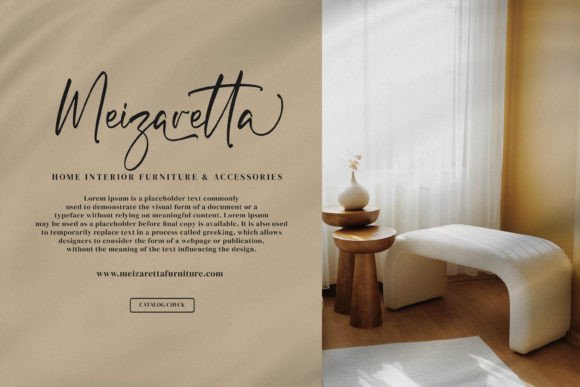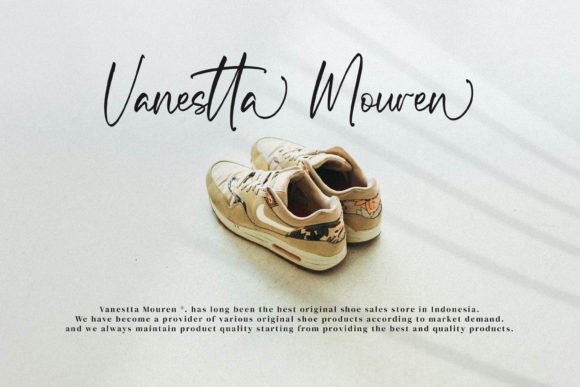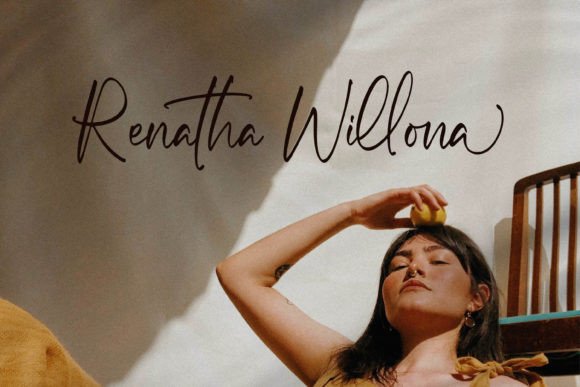
Introduction to Micqallena Font
As a designer, you’ve probably had that moment where you’re working on a project and everything feels just a little off – until you find the perfect font to bring it all together. For me, that moment came when I stumbled upon the Micqallena Font, a beautifully crafted script font that added a touch of elegance to even the simplest of designs.
With its high-quality design and intricate details, the Micqallena Font is a valuable addition to any designer’s library. Whether you’re working on a free download or a paid project, this font has the potential to elevate your creative work and make it truly stand out. Plus, with its transparent background, it’s easy to use in a variety of design resources, from logos to digital art.
As a design resource, the Micqallena Font is a game-changer for any creative project. Its versatility and beauty make it an essential tool for designers of all levels, and its potential to enhance any design makes it a must-have for any serious design enthusiast.
Key Features of Micqallena Font
- High-quality design resource ideal for creative projects and graphic designs.
- Features a unique, elegant design with a transparent background, perfect for overlaying on images or videos.
- Comes in a range of sizes, allowing you to scale the font to suit your specific design needs.
- Resolution-independent, ensuring crisp and clear text display regardless of the resolution or screen size.
- Perfect for use in a variety of creative projects, from logos and branding to typography and web design.
Honest Review: Micqallena Font
I recently stumbled upon the Micqallena Font while searching for a free download to spice up a creative project. I was pleasantly surprised by the high quality of this font, which boasts a unique and quirky aesthetic.
- High-quality design: The Micqallena Font is crisp and clear, making it perfect for a variety of design applications.
- Unique style: The font’s quirky, hand-drawn feel adds a touch of personality to any design project.
- Transparent background: This feature allows for seamless integration with other design elements and makes it easy to use as a design resource.
- Limited character set: The font only includes a limited set of characters, which may not be suitable for projects that require a wide range of symbols and glyphs.
- Not suitable for large text: Due to its quirky design, the font may not be the best choice for large blocks of text, as it can be difficult to read.
Overall, I’m impressed with the Micqallena Font’s unique design and high quality. While it may have some limitations, it’s a great addition to any designer’s toolkit and can be a valuable resource for creative projects.
Micqallena Font is ideal for a variety of creative projects, including logos, business cards, and marketing materials. Its unique design and transparent background make it perfect for designs that require a high level of customization. Additionally, the high quality of Micqallena Font ensures that it will look great in any design application.